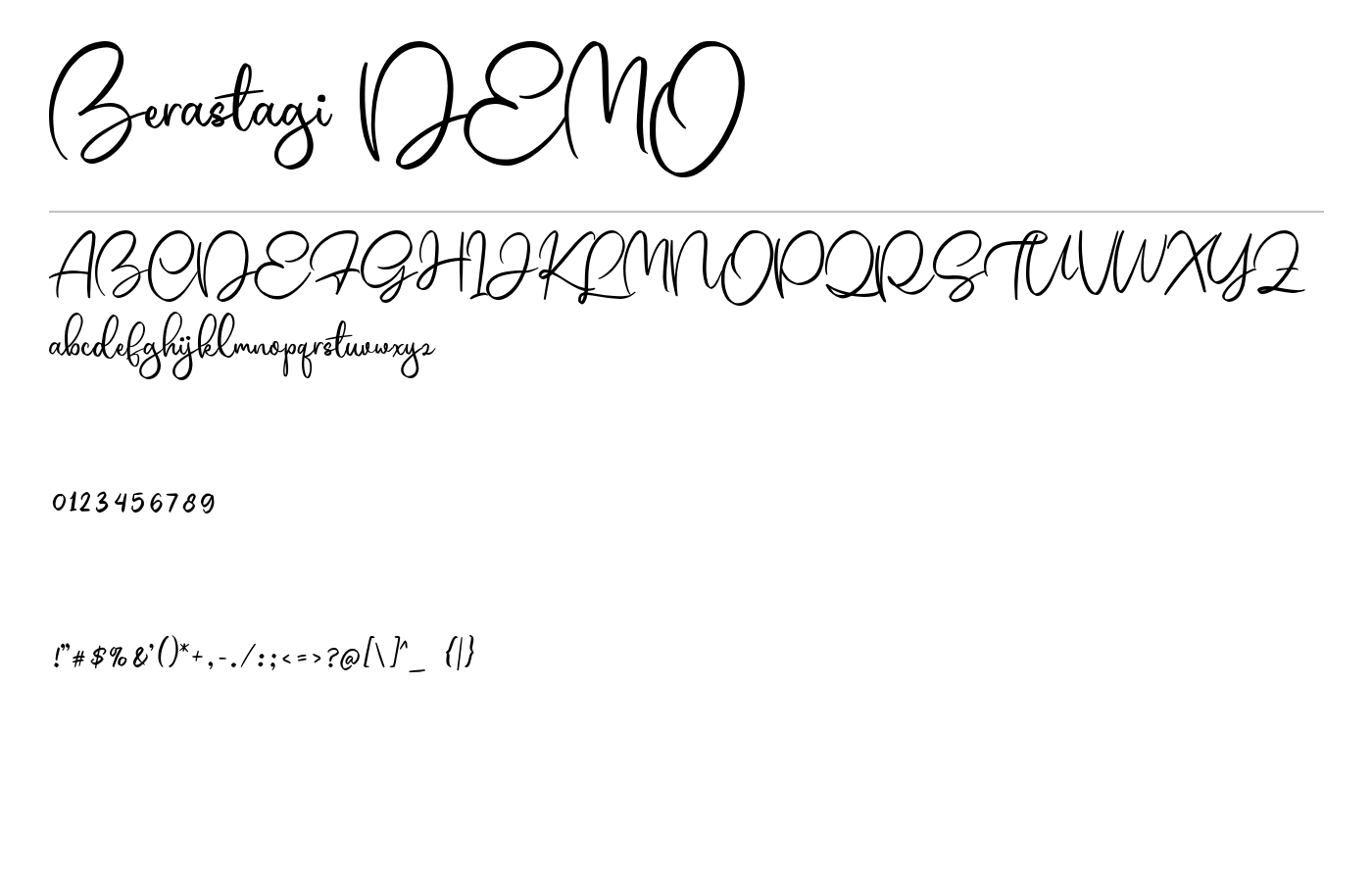
Berastagi DEMO is a delicate, handwritten script font with a light and airy feel, featuring slender strokes and elegant loops that give it a charming, personal touch. Its flowing, casual style is perfect for creative projects such as invitations, branding for boutique or lifestyle products, and any design looking to convey warmth and sophistication with a modern, handwritten flair.
Berastagi DEMO Font
About Berastagi DEMO Font